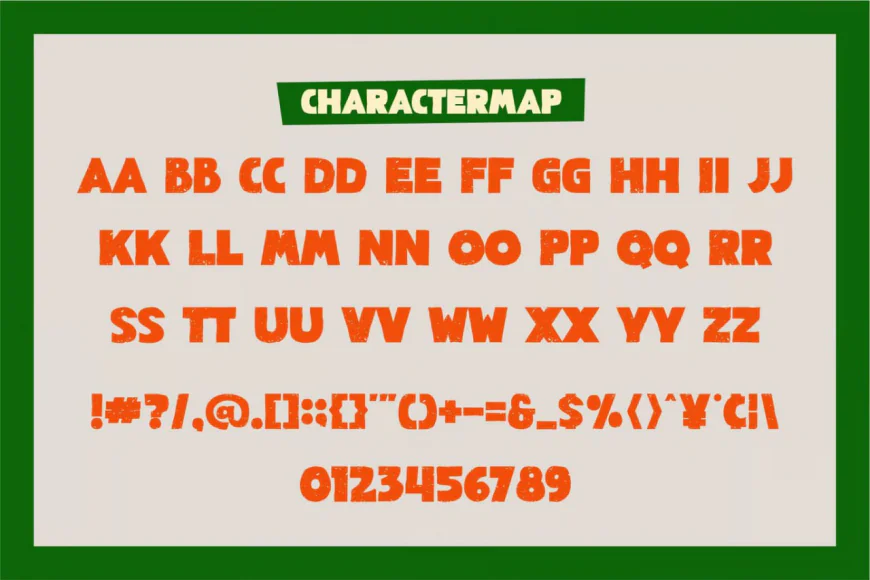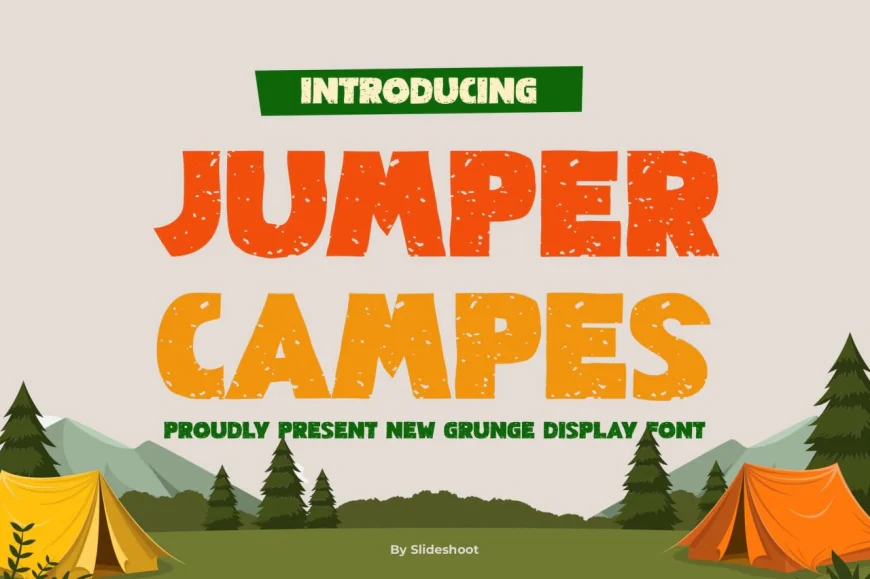
Unique and stylish display font with a modern, trendy, and playful touch.
Introducing Jumper Campes Bold – a unique and stylish display font with a modern, trendy, and playful touch. Featuring a distinctive wood-themed character, this font is perfect for invitation cards, company logos, movie titles, business cards, book covers, brand identities, and many other creative designs. Jumper Campes Bold font, stylish display font, modern trendy font, playful typography, wood-themed font.